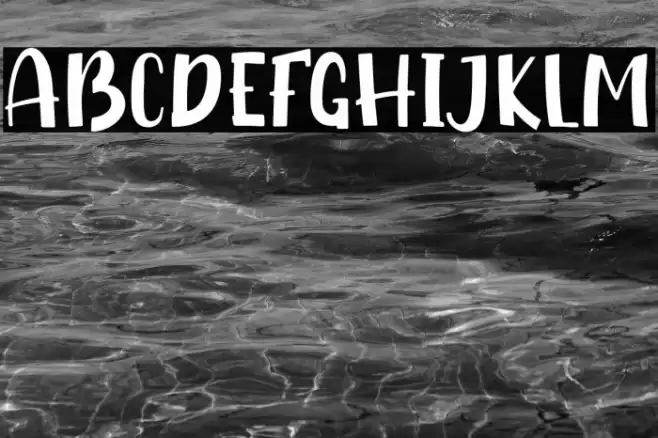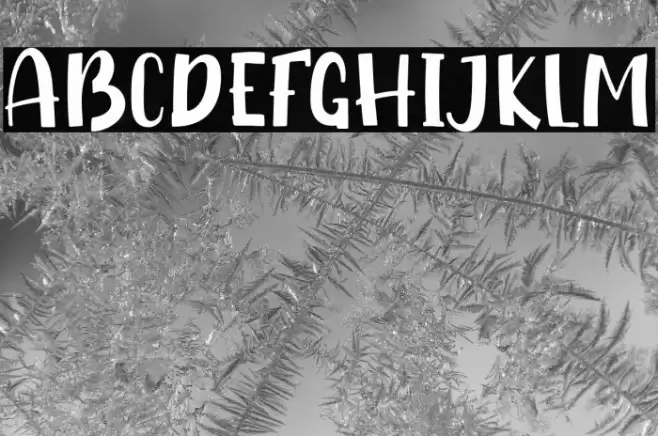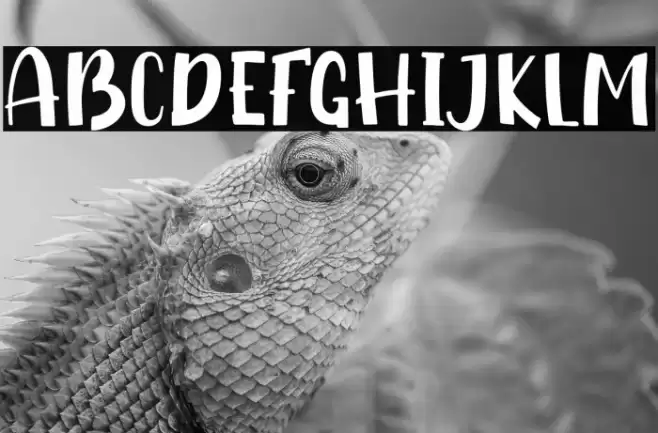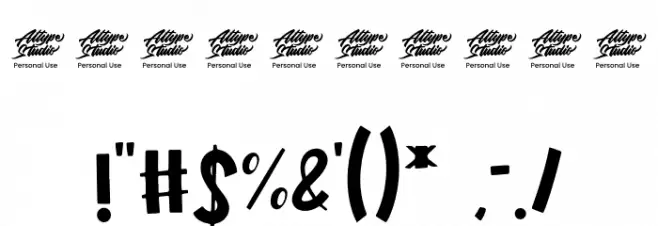
Shiny Unicorn - Personal Use Font
Shiny Unicorn - Personal Use Description
This playful and whimsical font features a bold and dynamic style with a hand-drawn appearance. The uppercase letters are characterized by their varying stroke widths and slightly irregular shapes, giving them a lively and energetic feel. The lowercase letters maintain a similar playful quality, with rounded edges and a casual flow. The numbers and special characters complement the alphabet with their quirky and unique designs. This font exudes a sense of fun and creativity, making it ideal for projects that require a touch of personality and charm.
A playful, hand-drawn font with bold, dynamic strokes and a whimsical style from Cartoon fonts.
- Proposed Projects: Ideal for children's book covers, playful branding, greeting cards, and creative posters.